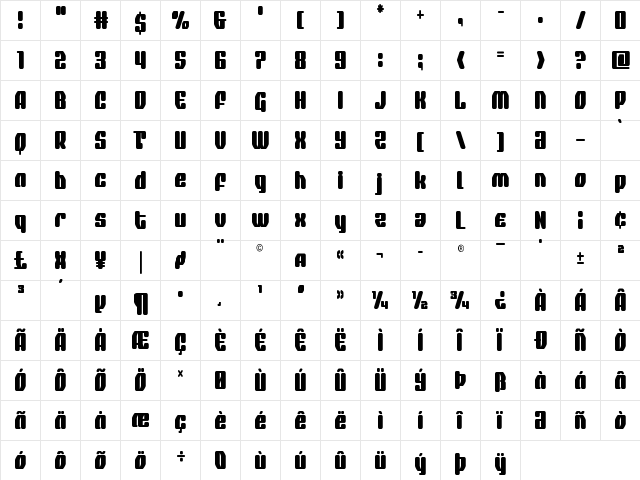
Quasar Pacer Condensed Condensed
Design Context for Quasar Pacer Condensed Typeface
Quasar Pacer Condensed takes a measured approach to typography — its balanced proportions and neutral character make it a reliable workhorse for both digital and print work. The condensed width makes it efficient for tight spaces without sacrificing legibility.